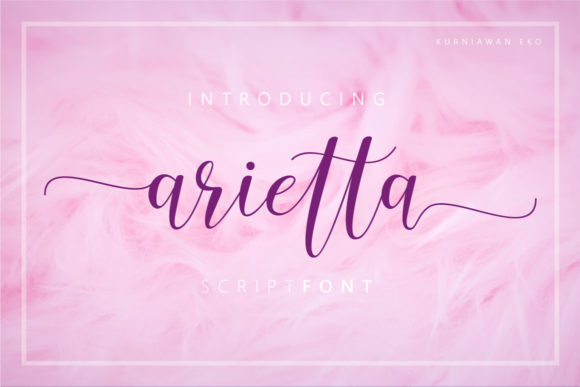
Unleash the Timeless Elegance of Arietta: A Script Font Symphony for Every Occasion
Within the realm of typography, where letters dance and words come alive, there exists a font that embodies the essence of grace, sophistication, and timeless beauty. Allow us to introduce Arietta, a script font masterpiece that will transform your creative visions into captivating realities.
Crafted by the skilled hands of Letteratom, Arietta is a symphony of curves and flourishes that evokes a sense of romance, elegance, and effortless style. Its meticulously designed characters exude a charm that is both captivating and unforgettable, leaving an indelible mark on the hearts and minds of your audience.
With its modern font script as its foundation, Arietta possesses a unique and distinctive personality. Whether you seek to create stunning logos that command attention, design eye-catching stationary that exudes professionalism, or craft enchanting invitation cards that hint at the magic within, Arietta is your steadfast companion.
But Arietta's versatility extends far beyond these traditional applications. Unleash your creativity and let Arietta guide you in crafting captivating quotes that resonate with your audience, leaving them inspired and uplifted. Allow Arietta to enhance your advertising campaigns with a touch of elegance that sets you apart from the mundane.
The beauty of Arietta lies not only in its aesthetic appeal but also in its user-friendly nature. With its intuitive design, Arietta effortlessly adapts to your creative needs, ensuring a seamless and enjoyable experience. Whether you're a seasoned designer or just starting your creative journey, Arietta's user-friendly interface will guide you with grace.
So why settle for ordinary when you can embrace the extraordinary? Choose Arietta and embark on a creative odyssey that will redefine your artistic expression. With its unparalleled elegance, versatility, and ease of use, Arietta is the key to unlocking the full potential of your creative vision.